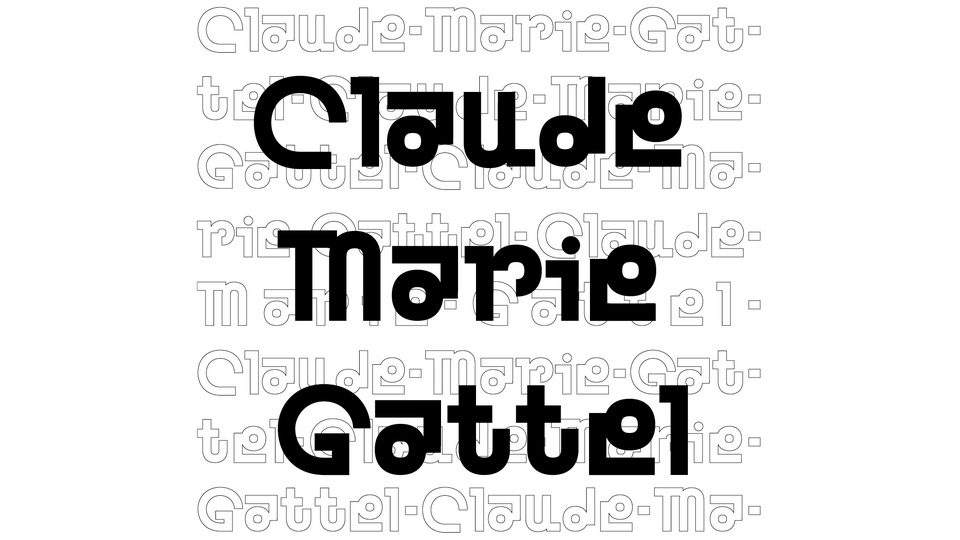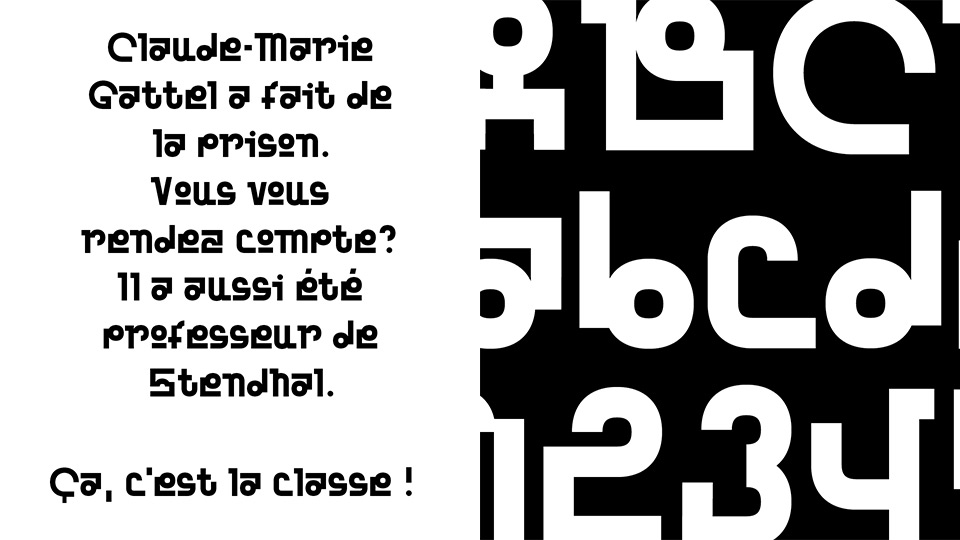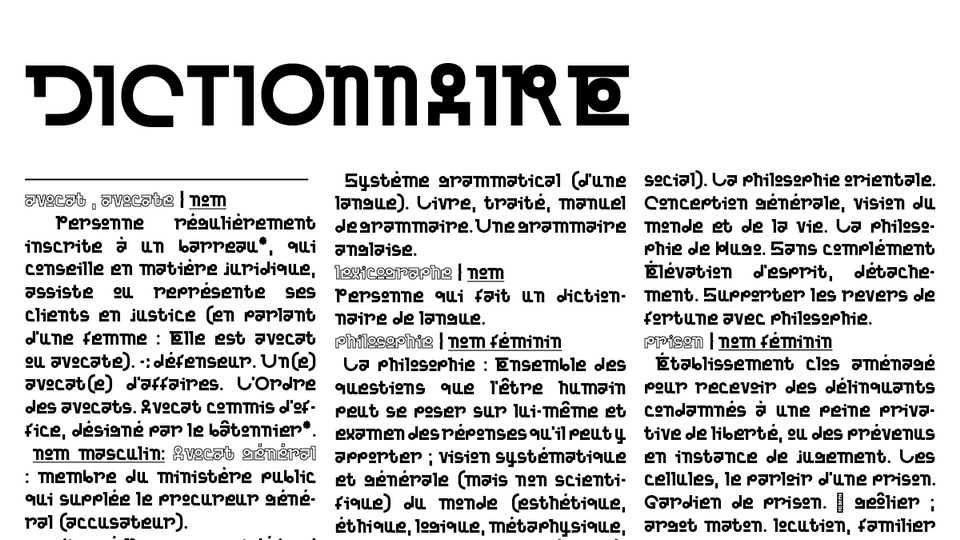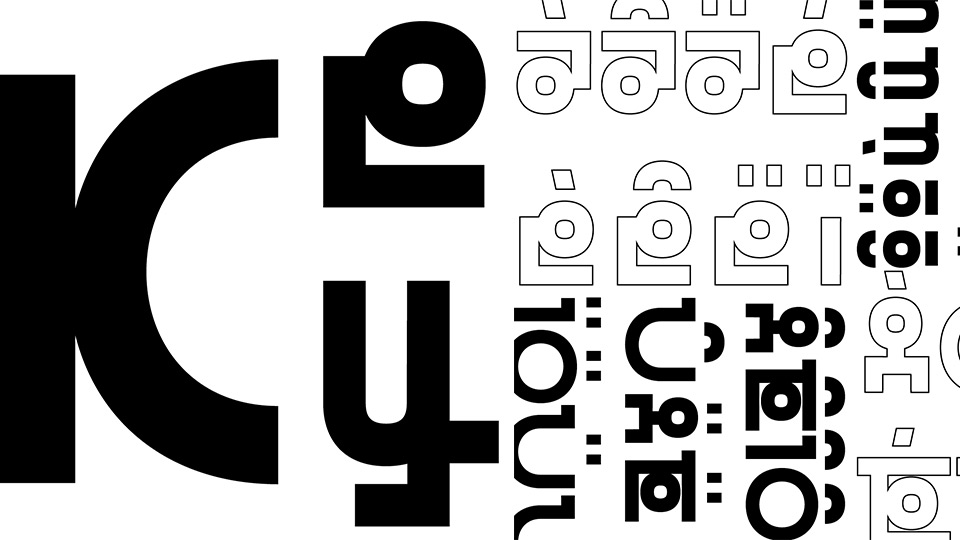
RandomWiki Gattel is a display typeface based on a randomly selected Wikipedia article and inspired by Claude-Marie Gattel.
RandomWiki Gattel was created during a type design initiation workshop given by Lucas Descroix (Bonjour Monde) in February 2023. In order to get an interesting conceptual distance the students first gathered words and images, then explored abstract rhythms by hand.